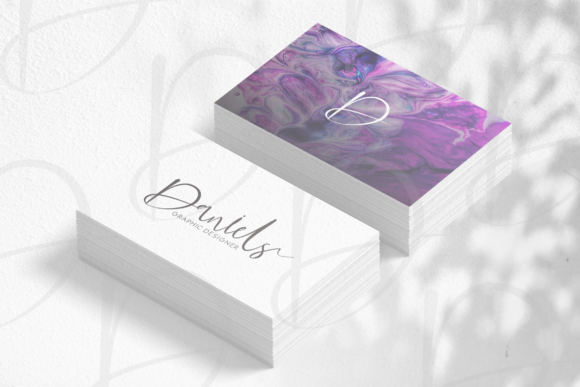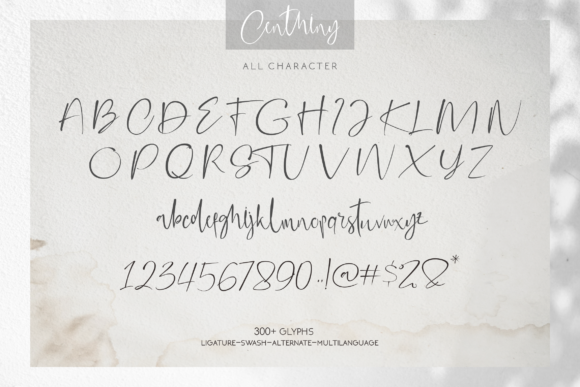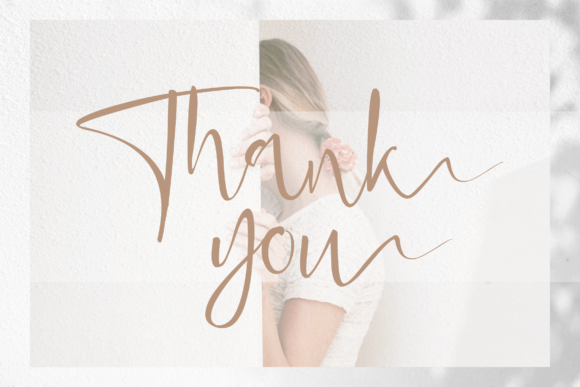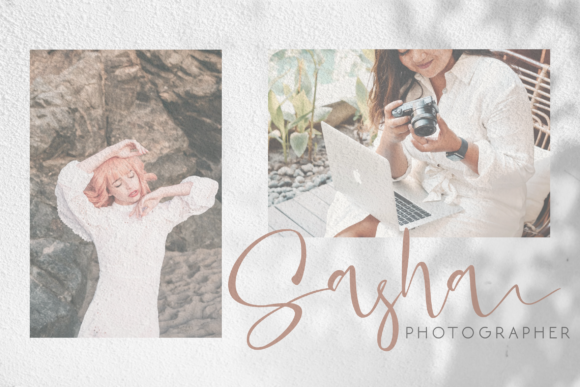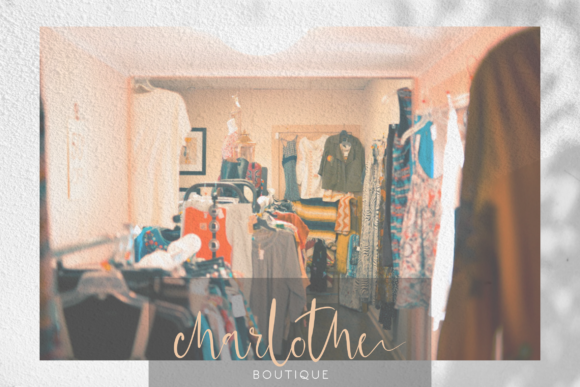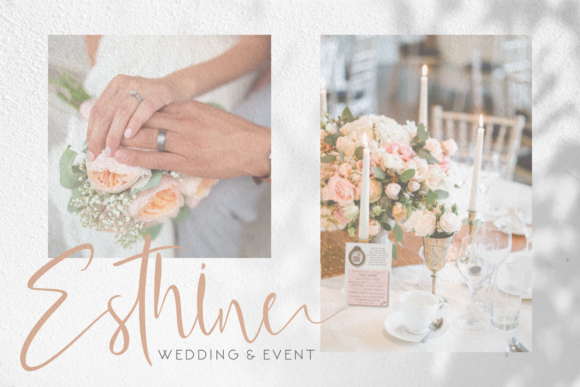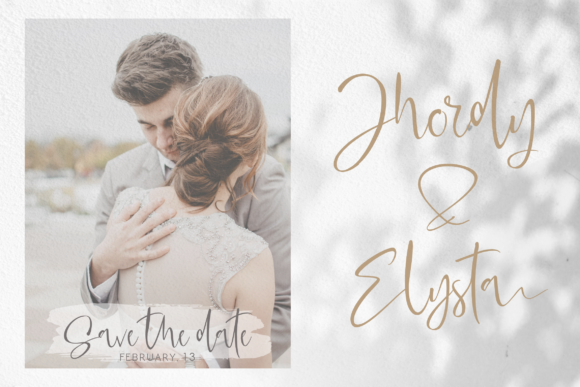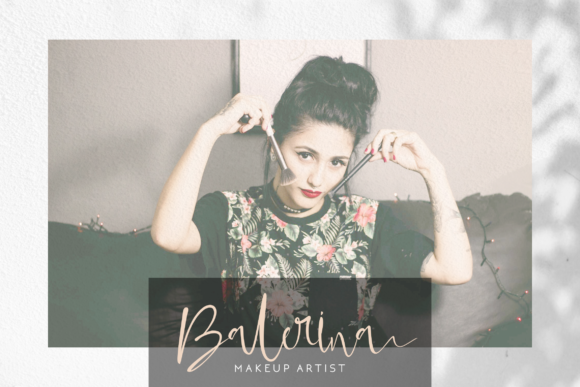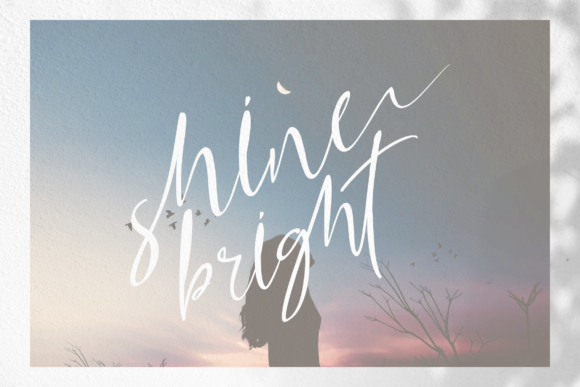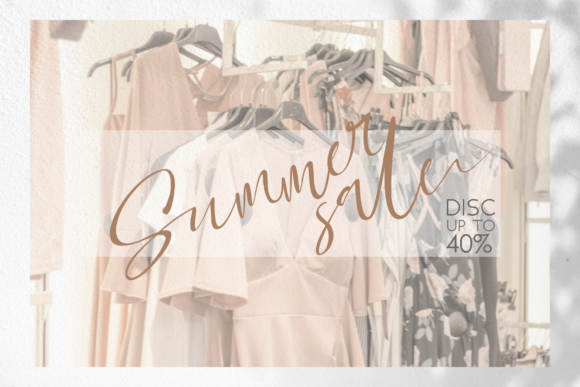
Centhiny Font
About Centhiny Font
Centhiny is a stunning script font with a contemporary look. Use it to turn any design project into a true standout!